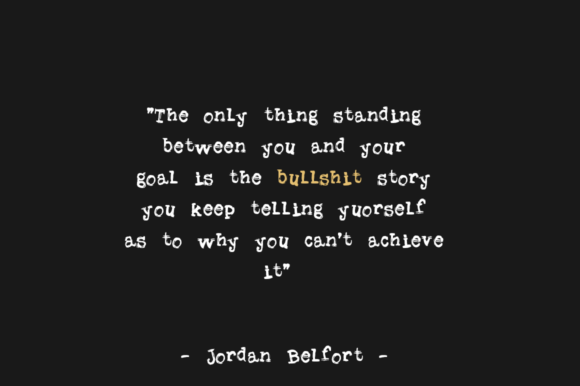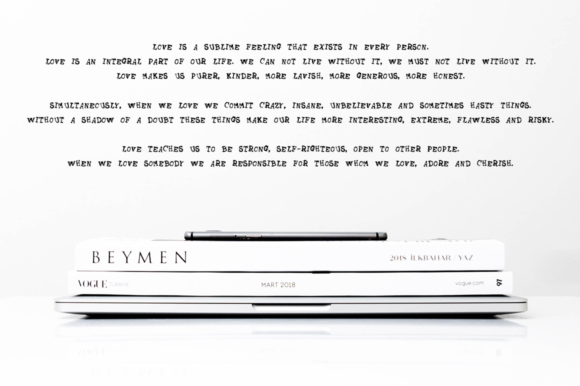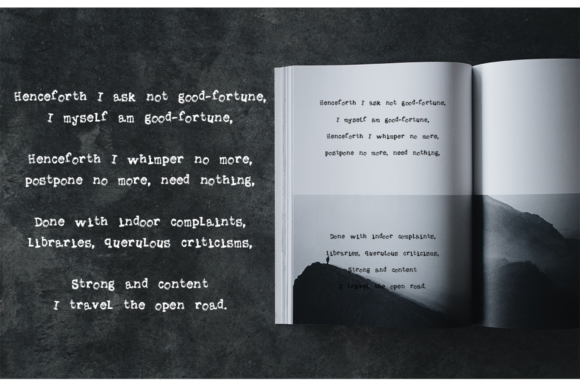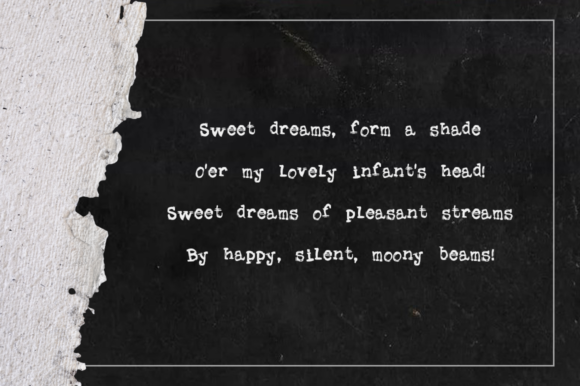
Gilbery Font
About Gilbery Font
Gilbery embodies fun, quirkiness and authenticity. This enchanting handwritten font will turn any creative idea into a true standout.